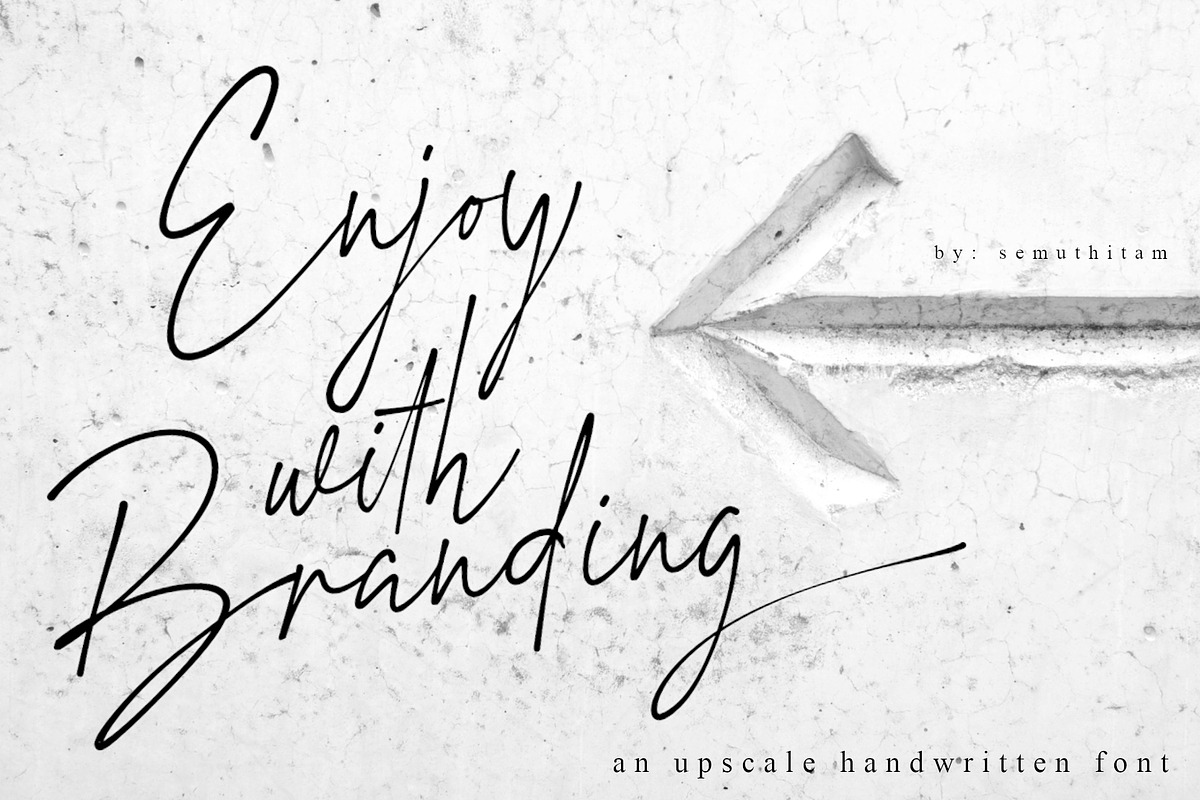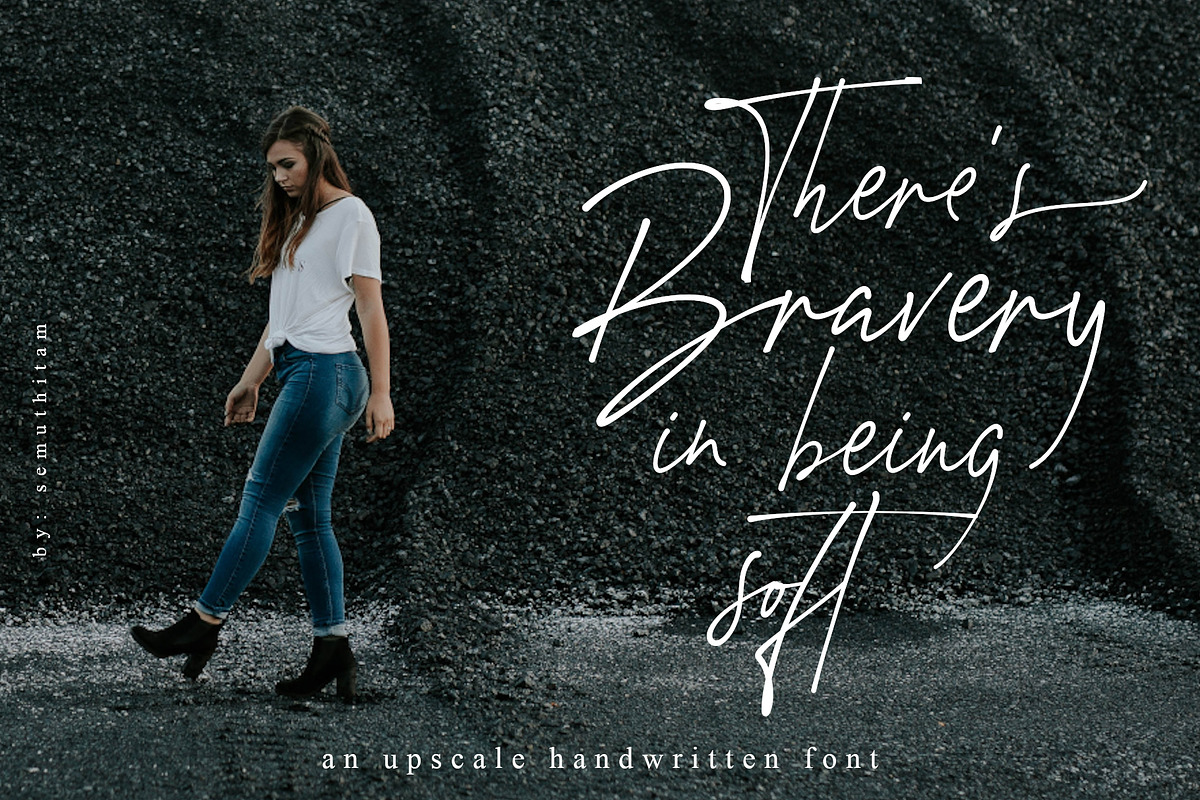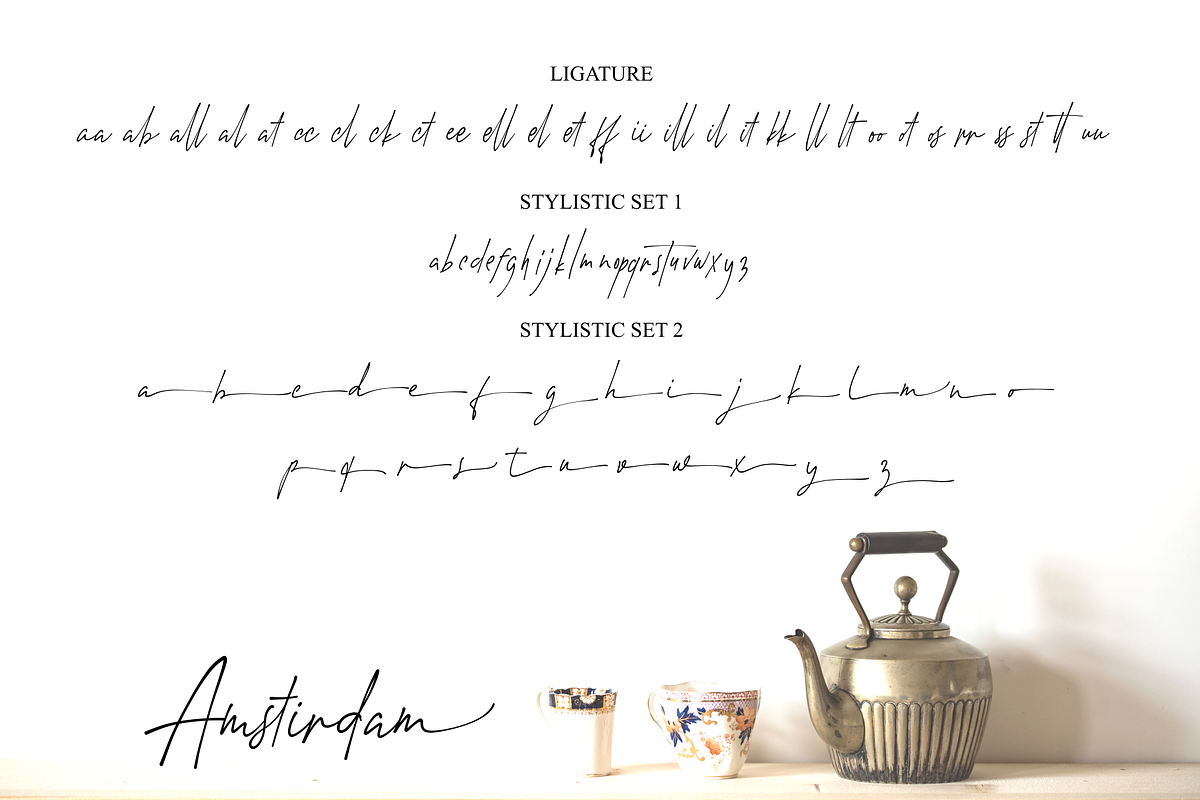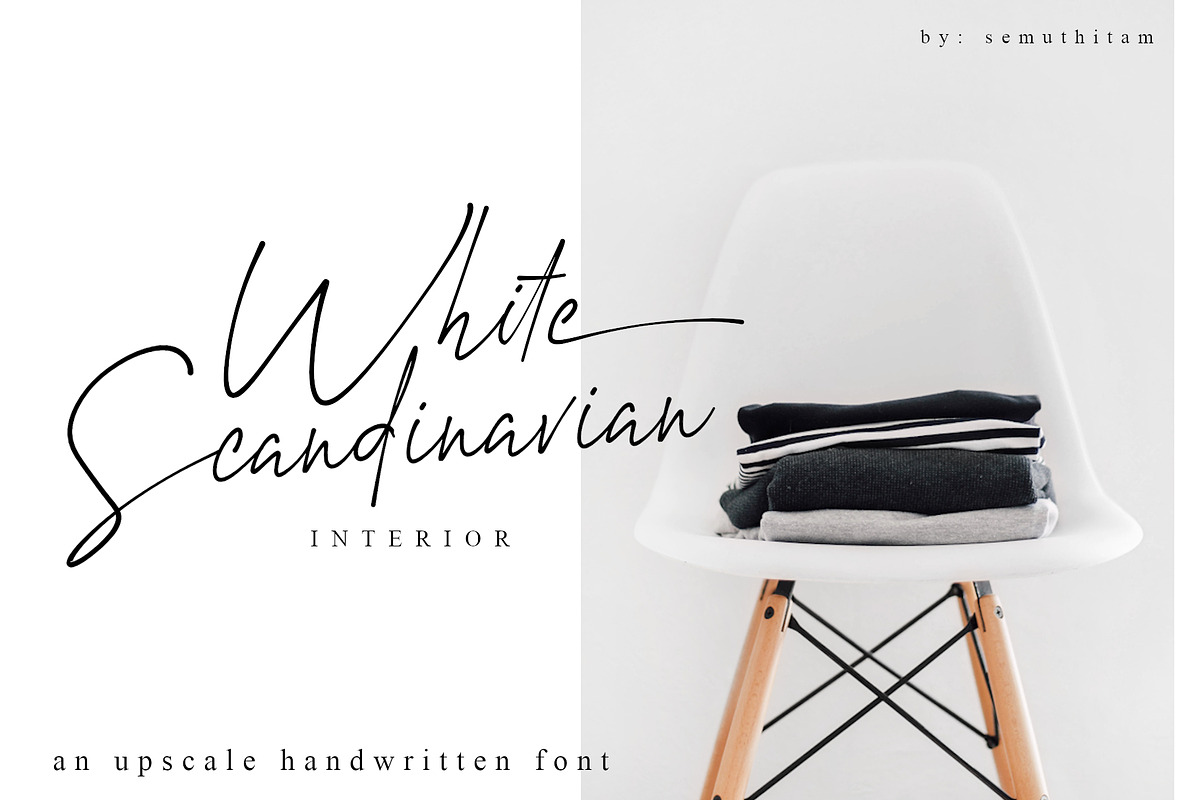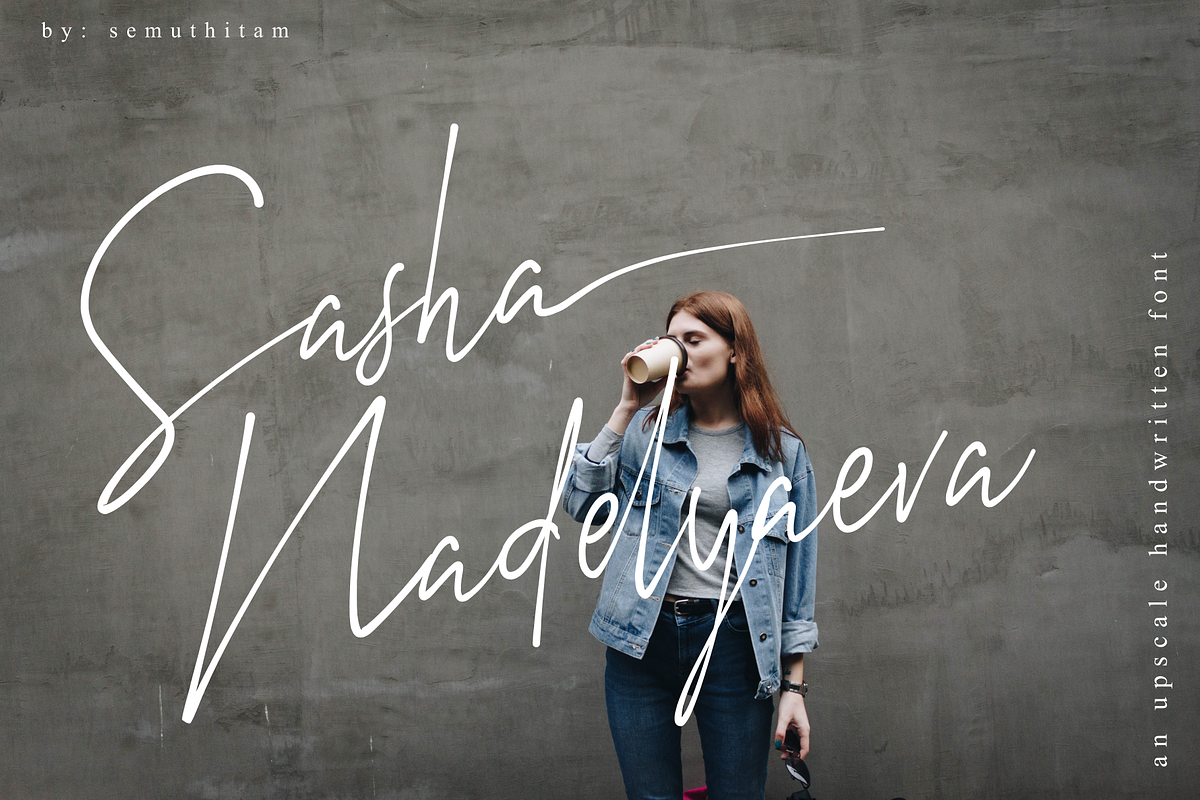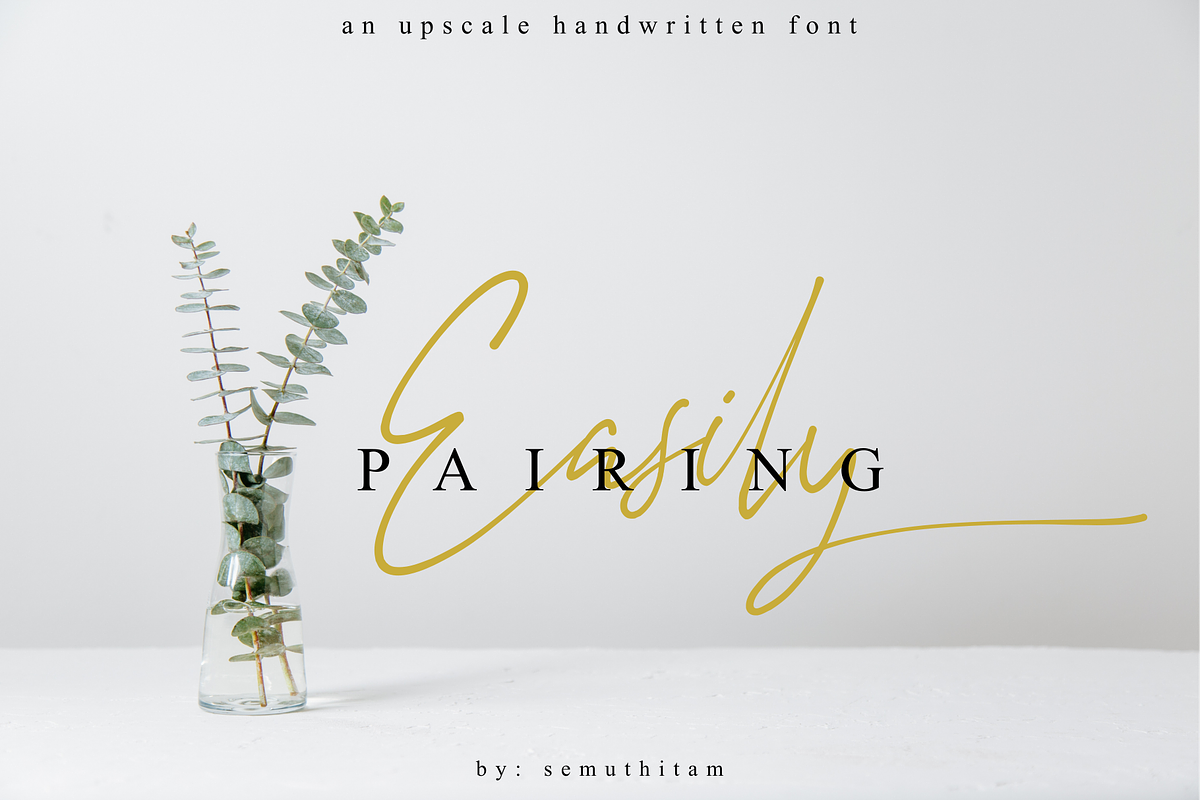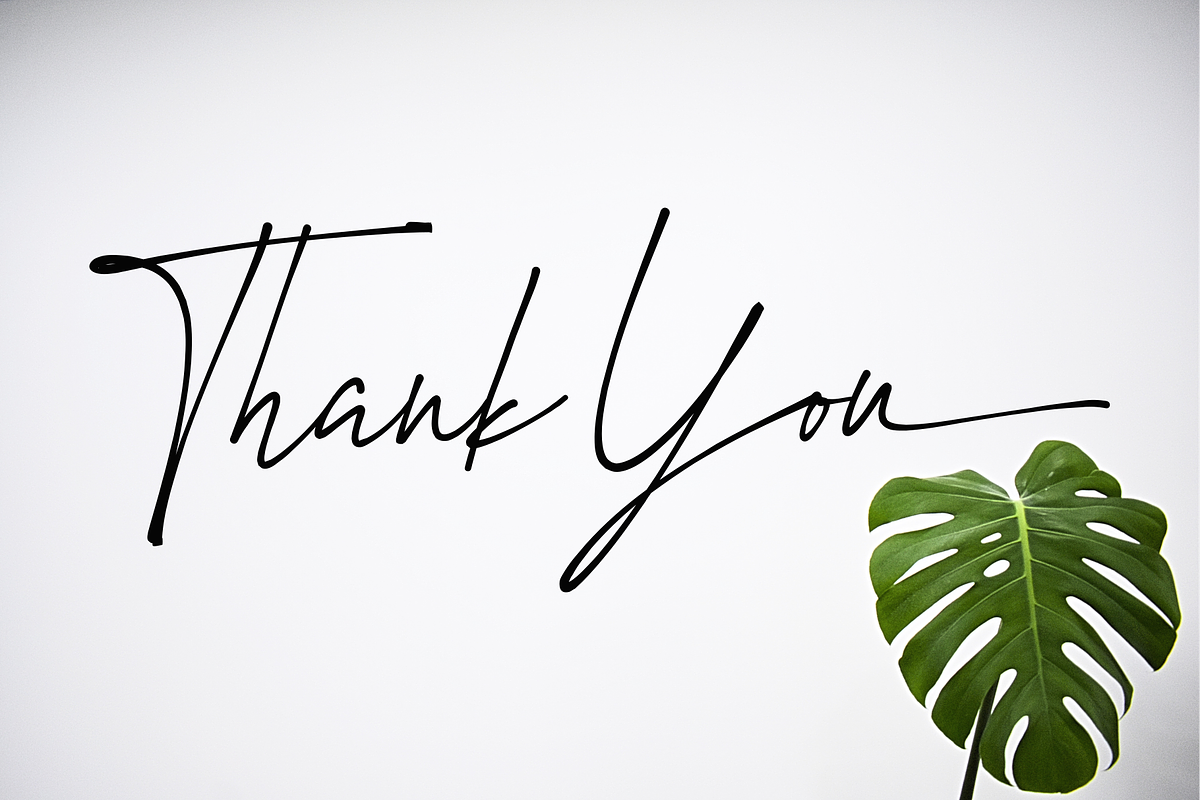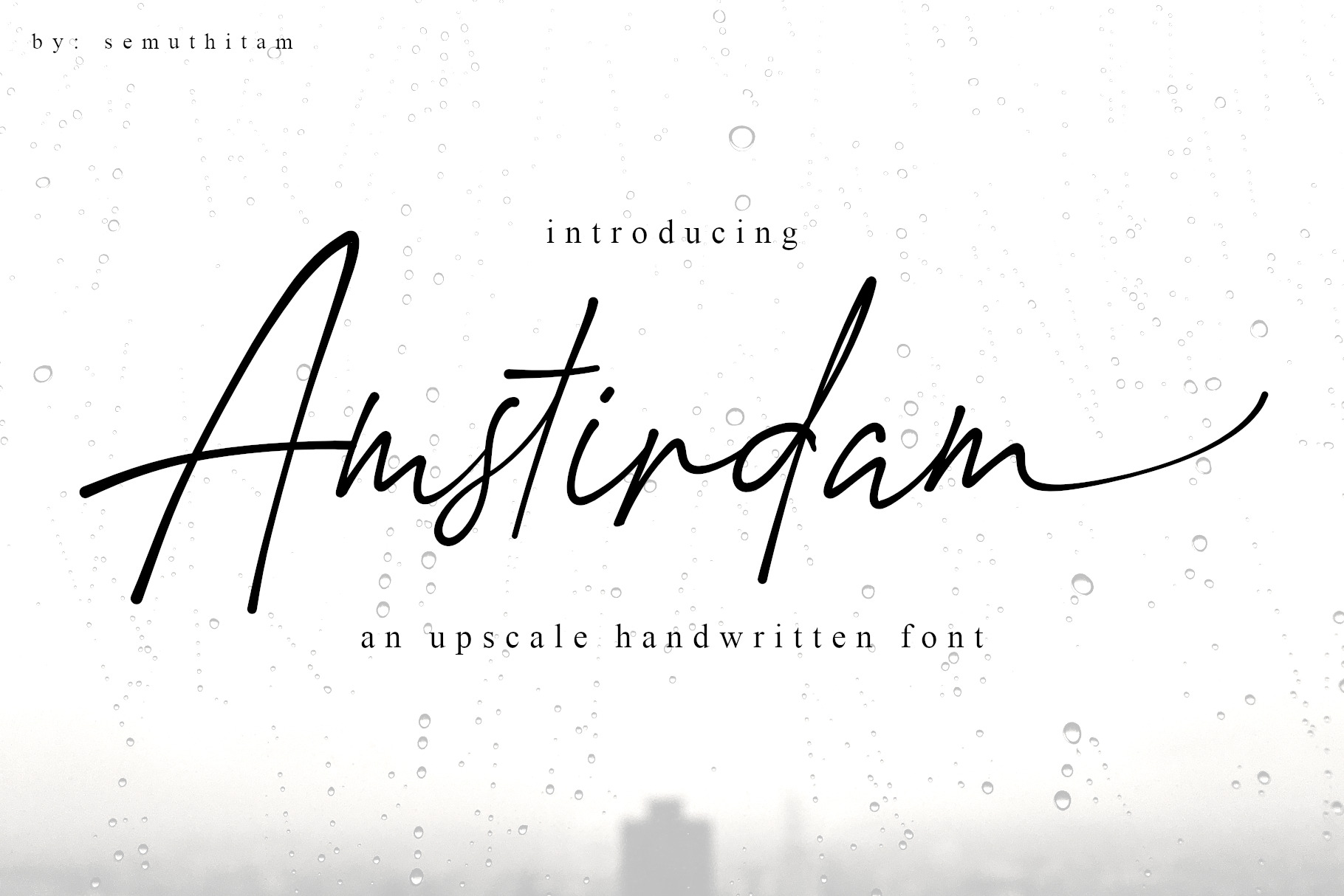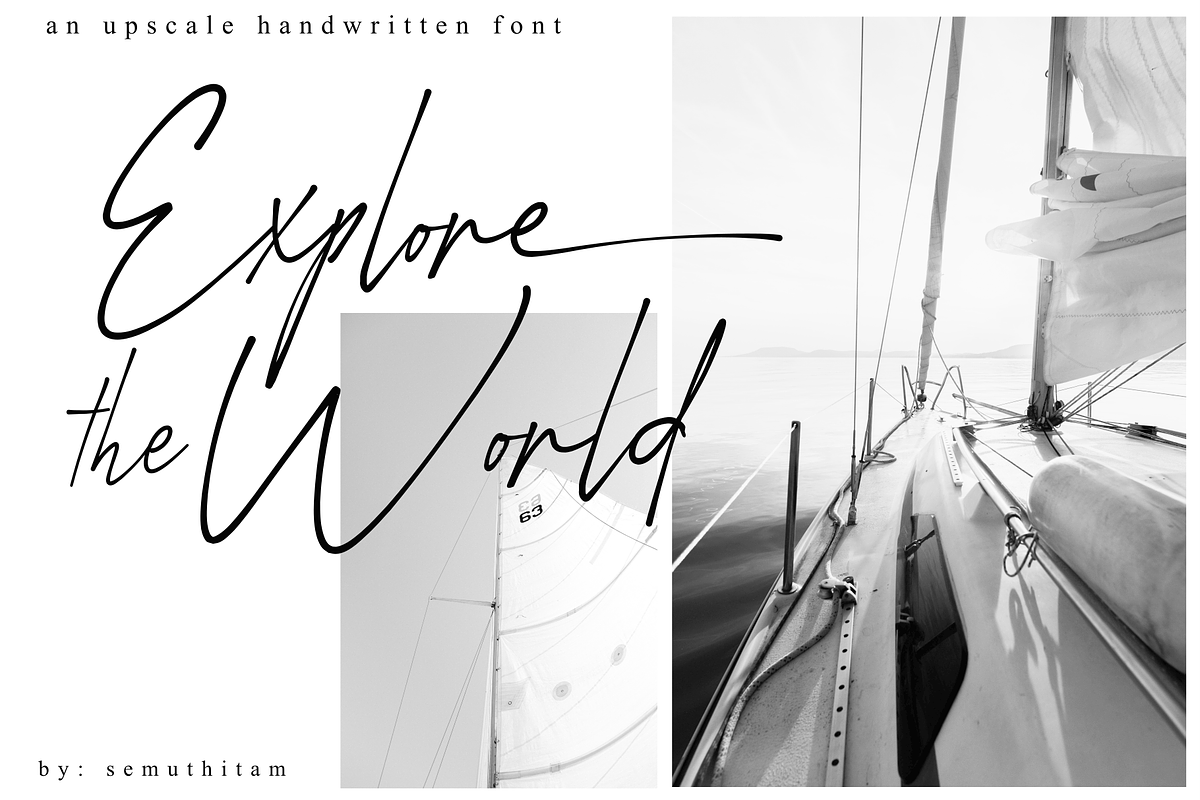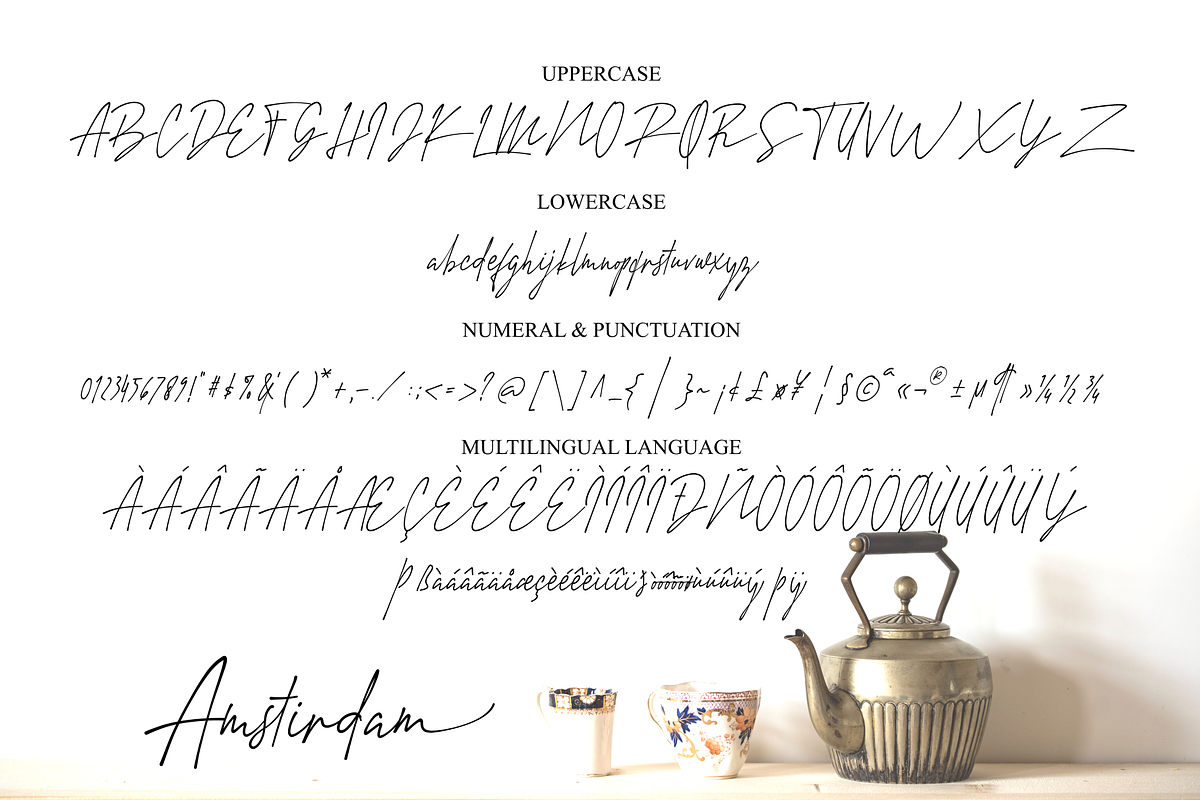
Amstirdam - Handwritten Fonts
Amstirdam is an upscale handwritten script font, Very suitable for: branding needs, wedding invitations, business cards, and for other print needs...
Amstirdam Includes full set of elegant uppercase, lowercase letters, numbers, punctuation, multilingual language, and various ligatures. All lowercase have 2 ending variations. And will give you a real handwriting impression.